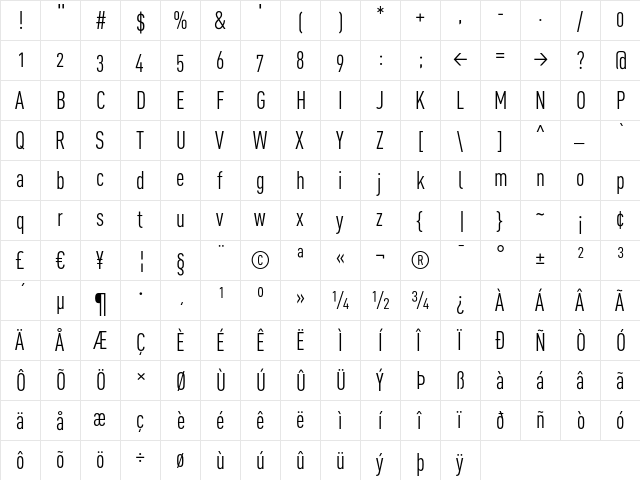
DINCond-RegularAlternate Regular
Design Context for DINCond-RegularAlternate Typeface
DINCond-RegularAlternate offers clean, dependable letterforms without strong stylistic allegiance, making it a practical choice for designers who need flexibility. Its narrow stance lets it pack a punch even in space-constrained designs.